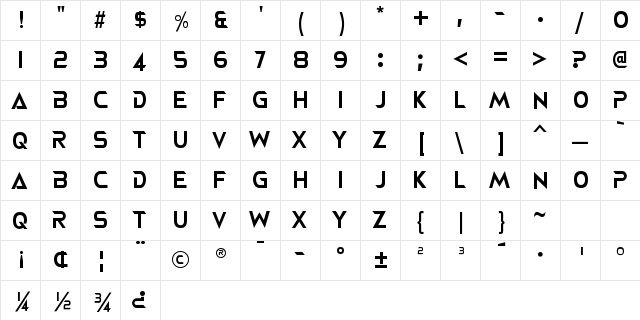
NEOTERIQUE Regular
| Designer | Hareesh Seela |
Design Context for NEOTERIQUE Typeface
NEOTERIQUE is a composed and adaptable typeface that performs quietly and consistently across a wide range of design contexts.